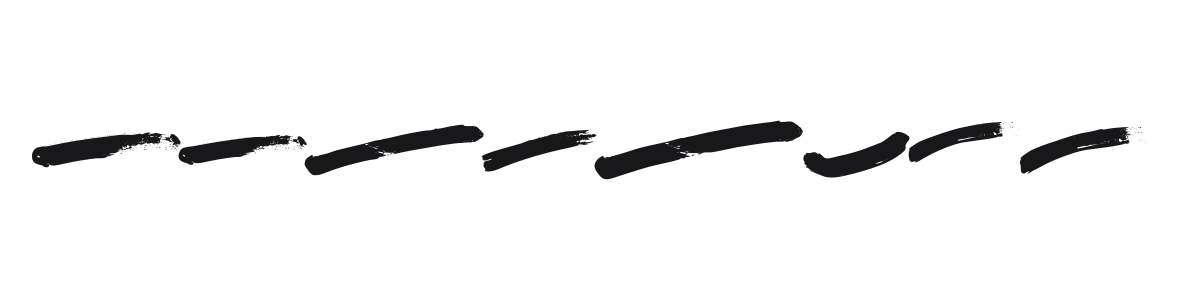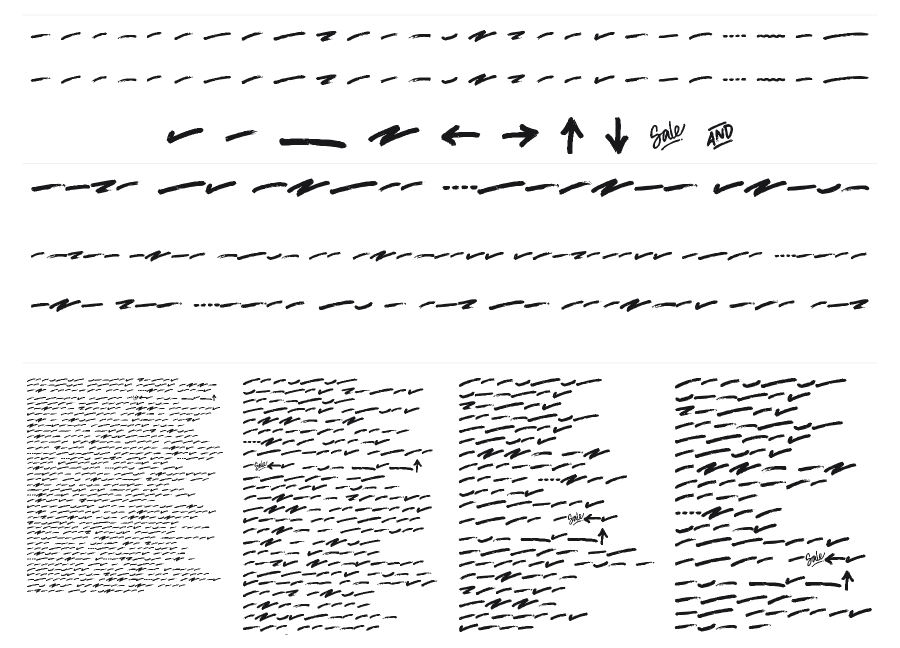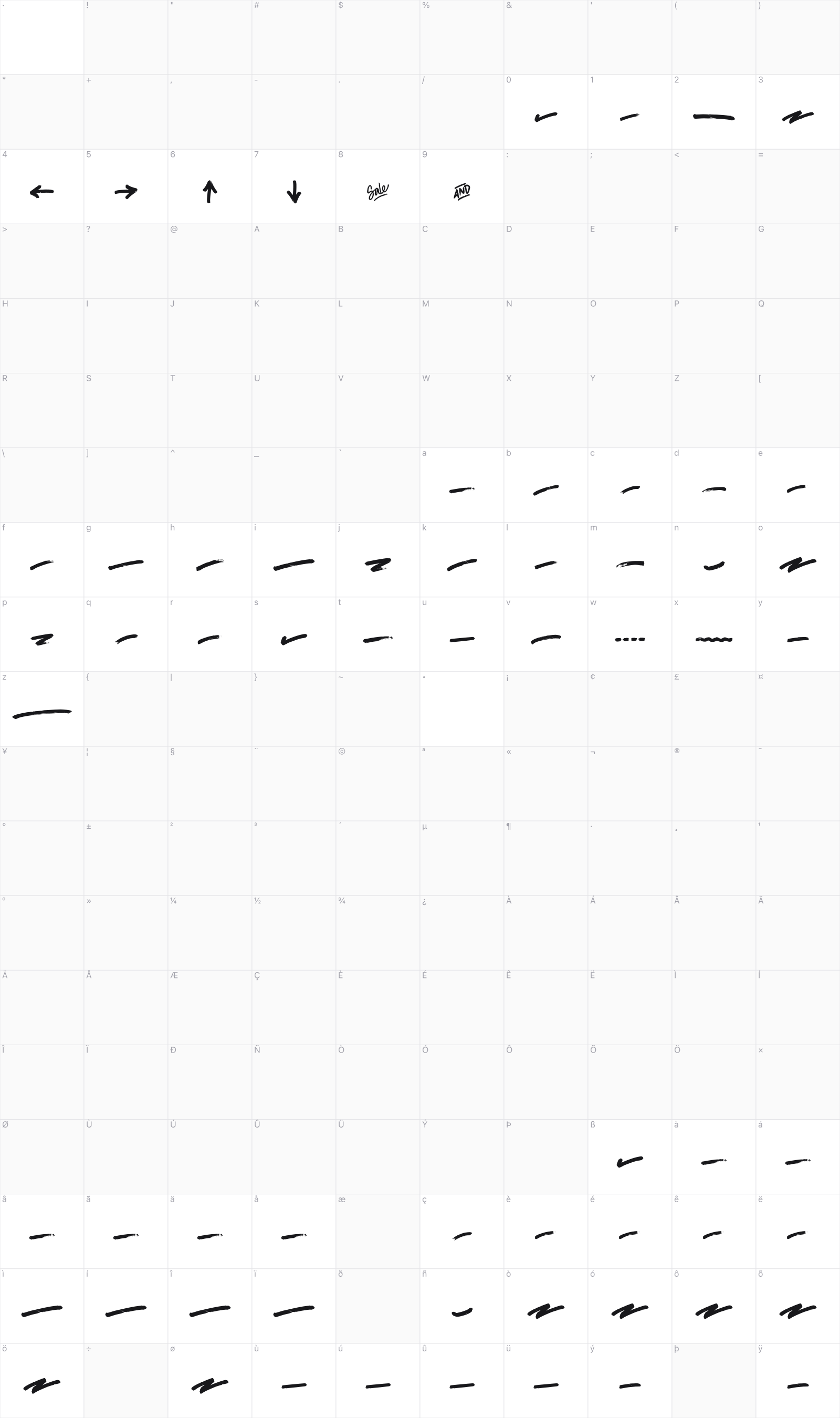
Tagliner
by Excellent Ritma Florendia
Tagliner is a hand-painted all-caps brush font with heavy, textured strokes and a spontaneous energy. Two sets of capitals let designers mix and match characters for more natural-looking variation. It carries the raw confidence of marker graffiti and street-art lettering.